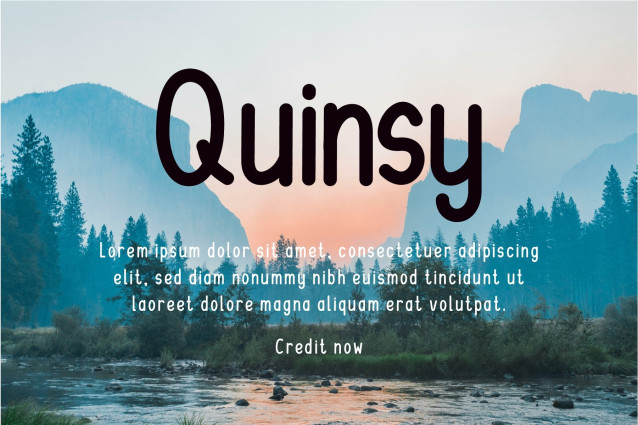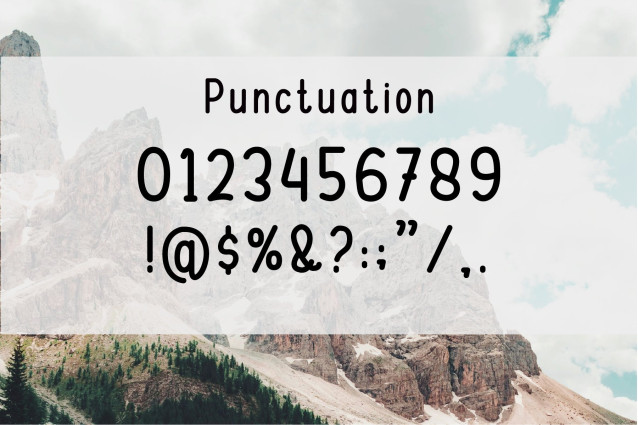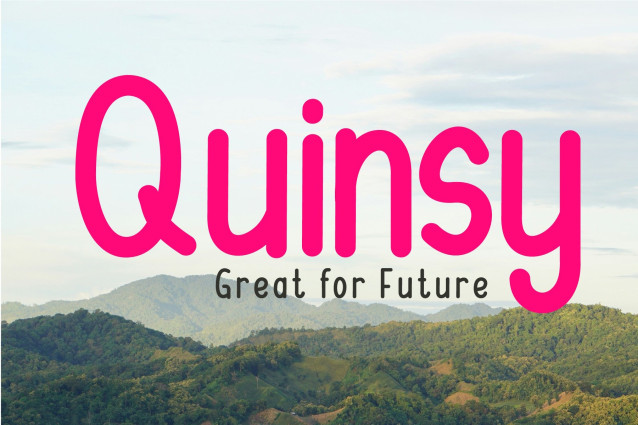
Quinsy Font
Quinsy Font is a fun and quirky sans-serif font. Add it to your creative projects and enjoy the results! Don’t wait any longer! Add Quinsy to your font library today and let your creativity flow without limits!